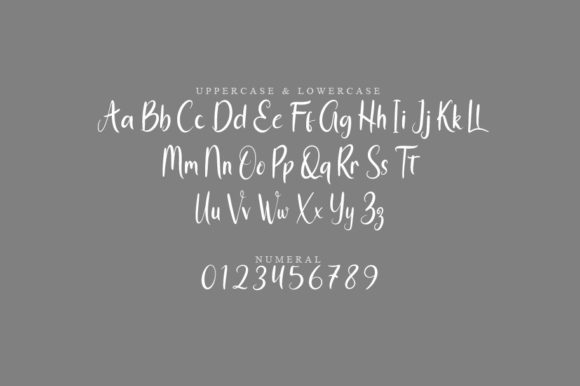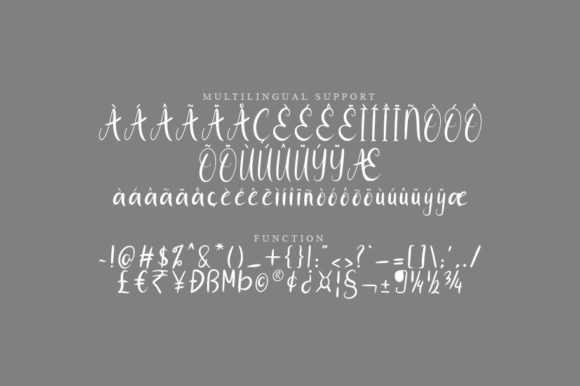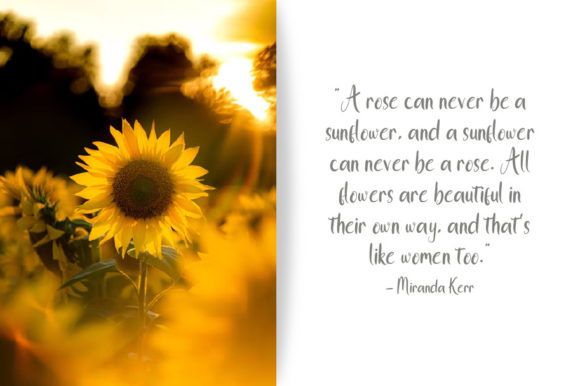
Blink Script Font
About Blink Script Font
Blink Script is a truly enchanting and timeless handwritten font that adds a touch of elegance and charm to any design. With its meticulously crafted letters, Blink Script is the ultimate choice for creating captivating logos, impactful branding, and memorable quotes.
When it comes to crafting logos, Blink Script shines as a font that instantly captures attention and leaves a lasting impression. Its graceful strokes and intricate details bring a sense of sophistication and uniqueness to your logo design, helping your brand stand out from the crowd.
For branding projects, Blink Script is a game-changer. Its timeless appeal and artistic flair elevate your brand’s identity, whether it’s featured on business cards, packaging, or promotional materials. The font effortlessly conveys a sense of authenticity and high-quality craftsmanship that resonates with your target audience.
Quotes and inspirational messages take on a new level of beauty and impact with the use of Blink Script. Each letter is a masterpiece on its own, enhancing the visual allure of your words and creating a powerful emotional connection. Whether it’s for social media graphics, posters, or art prints, Blink Script brings a sense of elegance and allure to your quotes.
The font’s exquisite touch is evident in every stroke, ensuring that each letter contributes to the overall aesthetic of your design. This attention to detail adds a layer of sophistication and refinement, turning your design into a true work of art.
In essence, Blink Script is the epitome of a lovely and timeless handwritten font, offering a unique and beautiful touch that breathes life into your designs. Whether you’re crafting logos, establishing your brand, or sharing inspiring messages, Blink Script is the perfect choice to infuse your design with elegance and creativity, making it truly come alive!